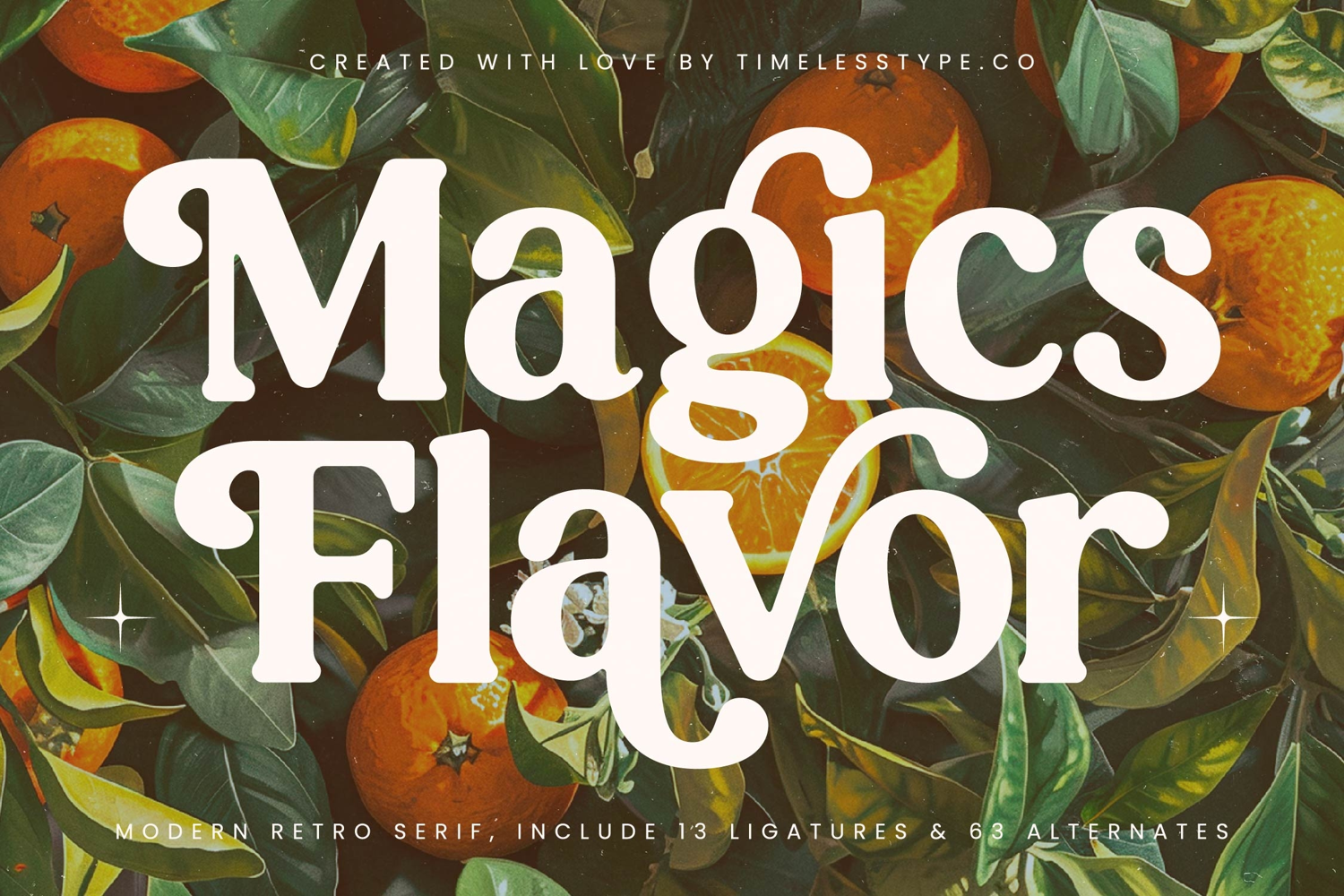
Magics Flavor - Modern Retro Serif
Magics Flavor
Magics Flavor italic
Magics Flavor Typeface is a modern retro serif font that combines bold vintage character with playful elegance. Featuring 13 ligatures and 63 alternates, this font provides creative flexibility to craft expressive, stylish, and unforgettable typography. Its chunky letterforms, soft curves, and ornamental alternates evoke a sense of nostalgia while remaining fresh and contemporary, making it a perfect choice for projects that require both retro charm and modern flair.